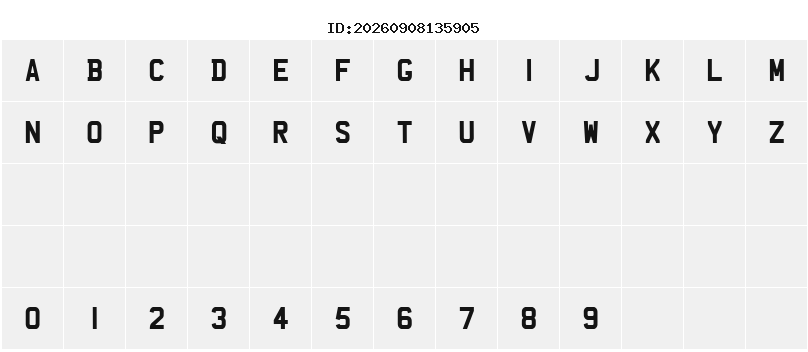
UKNumberPlate Preview
• Designer: Gareth Attrill
About UKNumberPlate.ttf
UKNumberPlate.ttf is a modern, elegant sans-serif font designed for ultimate readability and visual harmony. Perfect for branding, headlines, web design, and print materials.